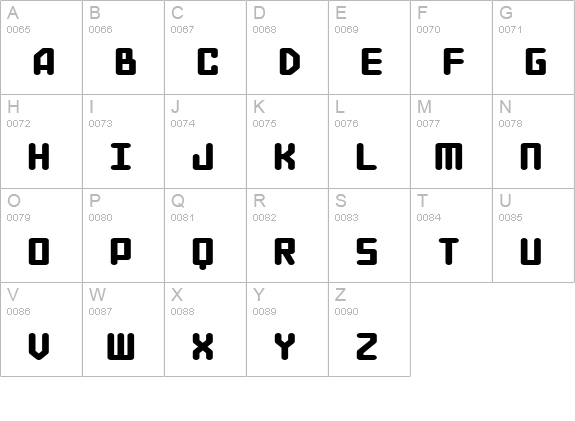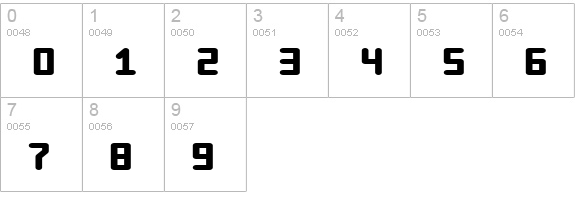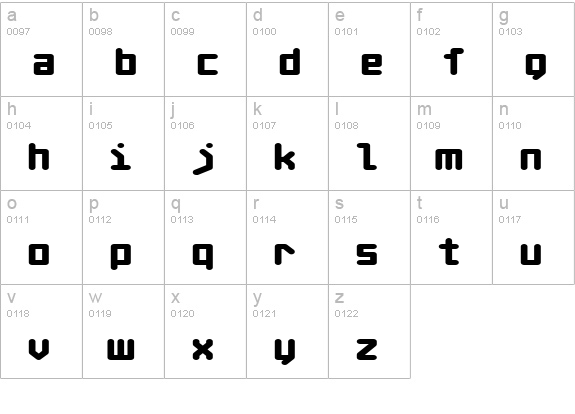
AddElectricCity font is a modern and edgy typeface that brings a dynamic energy to any design. Its bold and electrifying style makes it a perfect choice for projects that require a powerful and impactful look. The sleek lines and futuristic design of AddElectricCity font will surely captivate the attention of viewers and add a touch of excitement to your work. Best of all, AddElectricCity font is available for free download at FontsMarket.com. This means you can easily access this stunning font and use it in your projects without any cost. Whether you're designing posters, logos, websites, or any other creative project, AddElectricCity font is sure to make a bold statement and elevate your design to a whole new level. Don't miss out on this fantastic opportunity to enhance your work with the electrifying style of AddElectricCity font. Download it now and let your creativity shine!